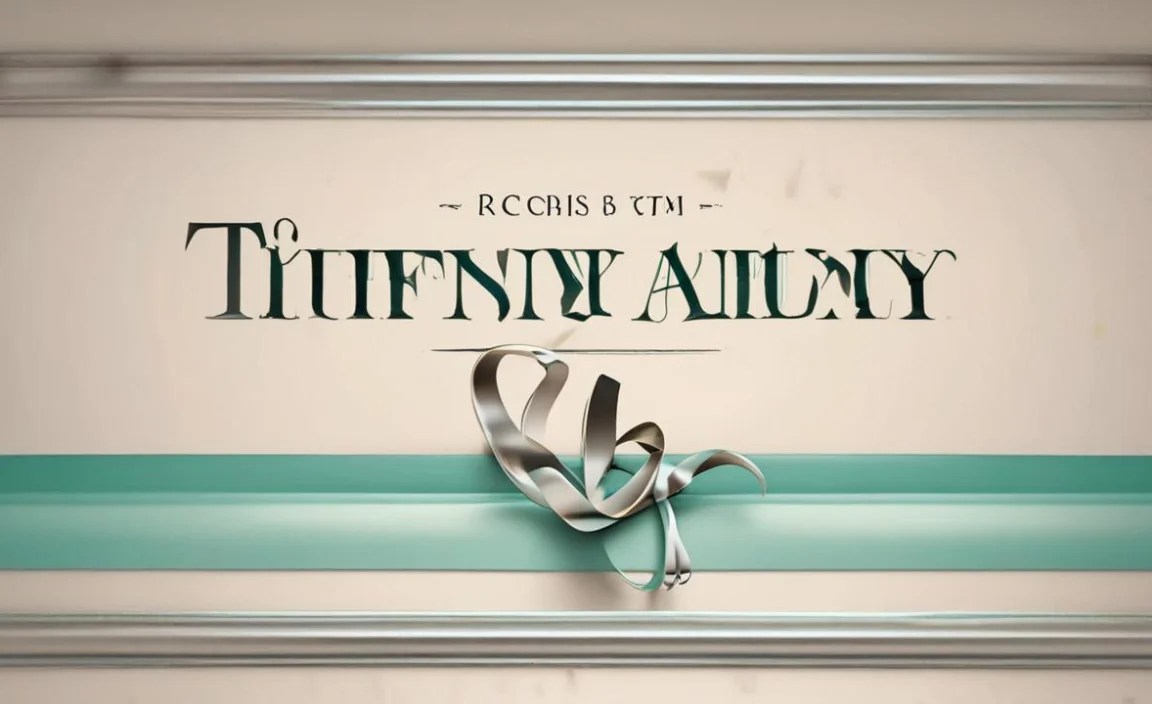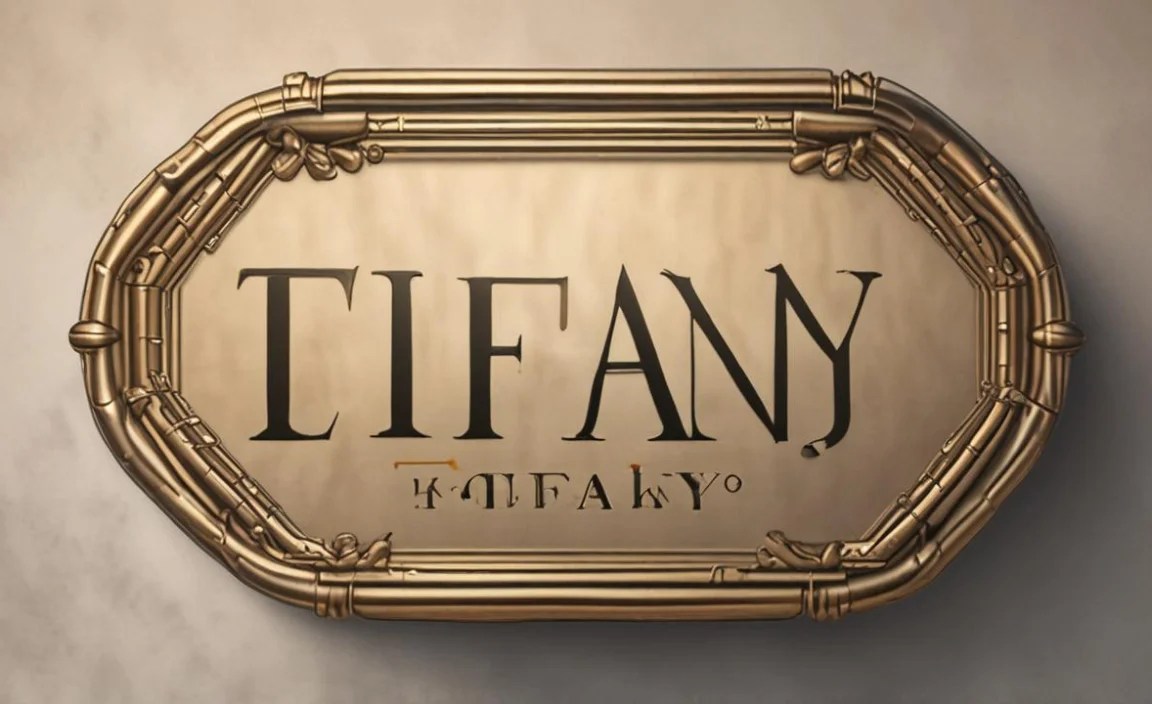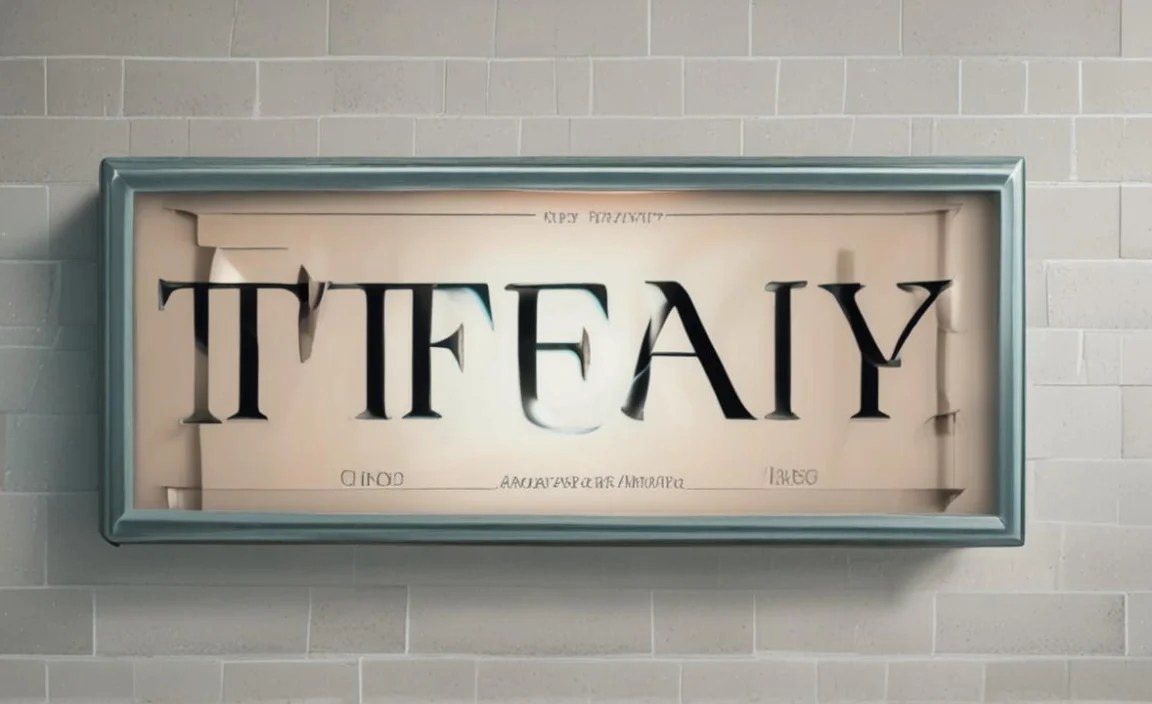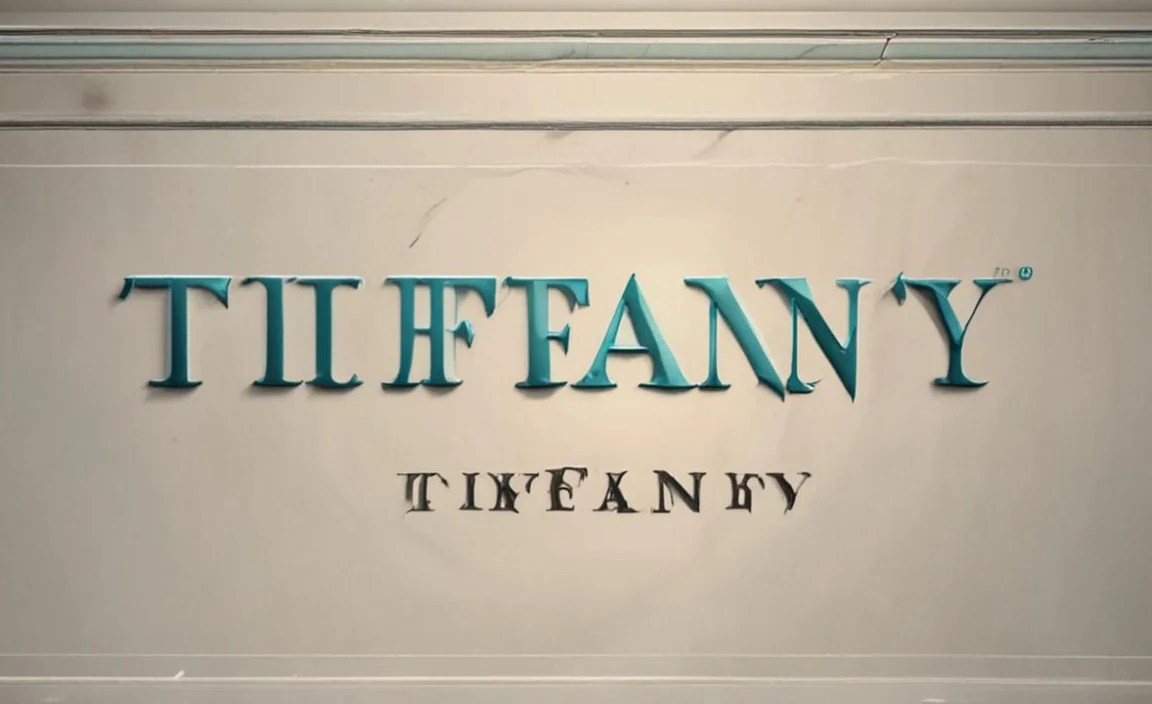
The Tiffany Font is a refined serif typeface designed by the prestigious Hoefler Type Foundry. Introduced to reflect the elegance and sophistication of the iconic jewelry brand Tiffany & Co., founded by Charles Lewis Tiffany in 1837, this font exudes a sense of luxury and timelessness.
With its stylish letterforms and a variety of weights, the Tiffany Font is widely used in luxury branding, product packaging, and printed materials, making it a favored choice for designers seeking to convey high-quality aesthetics in their work.
Tiffany Font Information
| Name | Tiffany Font |
| Style | Serif Font |
| Designer | Hoefler Type Foundry |
The Tiffany Font family includes:
- Tiffany Regular
- Tiffany Bold Italic
- Tiffany Italic
- Tiffany Light
- Tiffany Medium
- Tiffany Medium Italic
- Tiffany Normal
Where Tiffany Font Is In Use
- Jewelry Branding: Used in logos and product packaging for its elegant appearance.
- Custom Engraving: Frequently found in hand-engraved items, reflecting sophistication.
- Printed Materials: Employed in brochures, business cards, and marketing materials.
- Design Projects: Utilized by designers for a classic, upscale look in various design contexts.
- Product Tags: Commonly seen on Tiffany Blue boxes and associated merchandise.
The Tiffany Font is a hallmark of elegance and sophistication, ideal for luxury branding and custom designs. Its classic serif style enhances the visual appeal of jewelry, printed materials, and various design projects, making it a versatile choice for designers aiming to convey refinement and exclusivity.
Whether used in logos or engraved items, the Tiffany Font remains a symbol of timeless beauty and craftsmanship, embodying the essence of the Tiffany brand.
1.What Is The Tiffany Font Used For?
The Tiffany Font is commonly used in jewelry branding, custom engraving, and printed materials to convey elegance.
3.Who Designed The Tiffany Font?
The Tiffany Font was designed by Hoefler Type Foundry, reflecting the sophistication of the Tiffany brand.